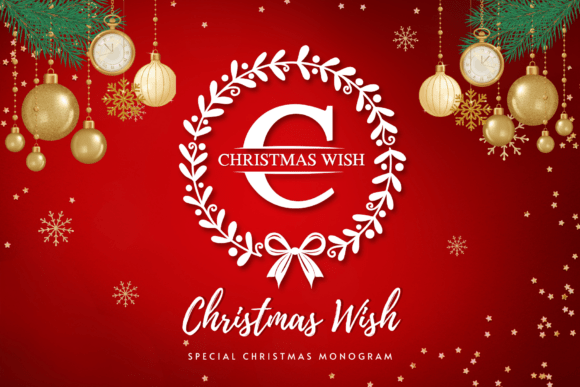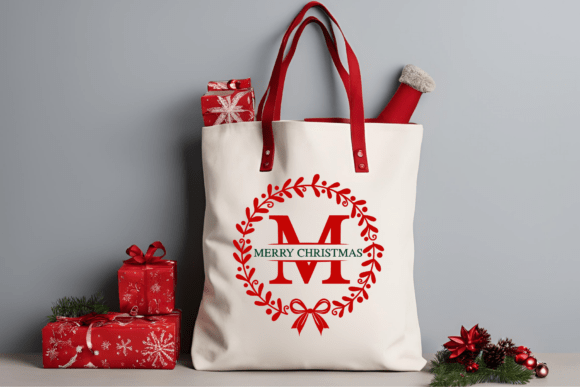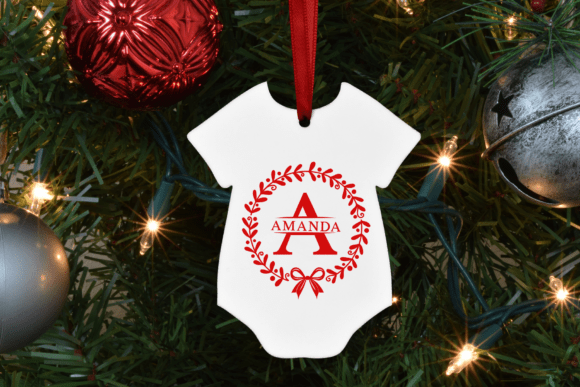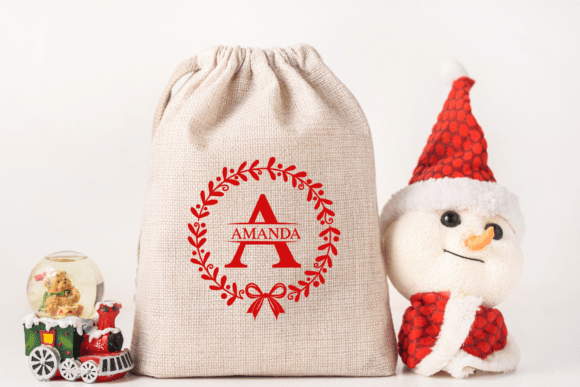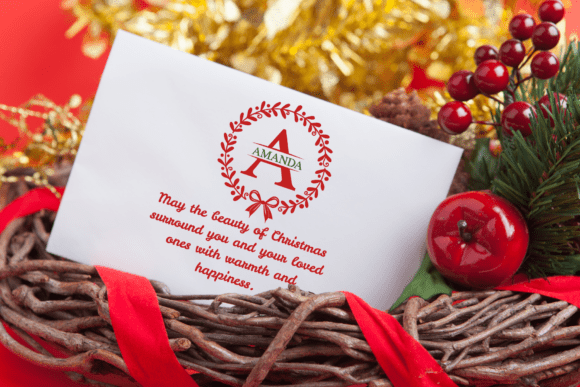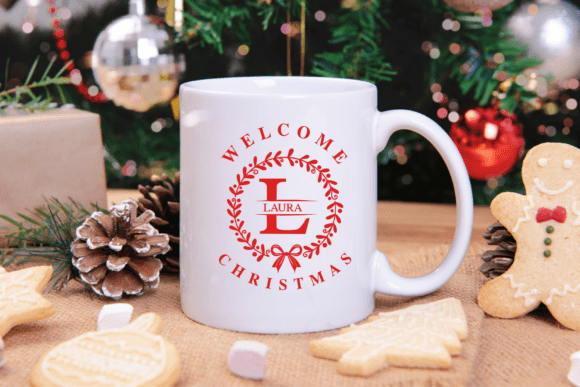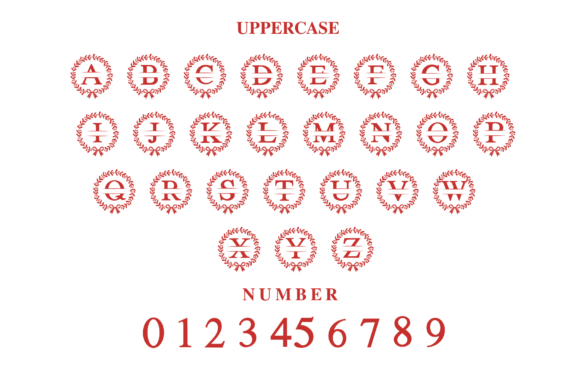
Deck the Halls with Holiday Cheer: Introducing Christmas Wish Monogram Font
As the snowflakes start to fall and the holiday lights begin to twinkle, many designers find themselves in the midst of a creative whirlwind. The festive season is a time for joy, giving, and making memories with loved ones. For those who love to create, there’s no better way to capture the essence of Christmas than with a beautiful and elegant monogram font.
Enter the Christmas Wish Monogram Font, a stunning typeface that adds a touch of holiday magic to any project. With its intricate details and festive flair, this font is perfect for crafting cards, invitations, and posters that exude the spirit of the season. Whether you’re a seasoned designer or a crafty enthusiast, this font is a valuable addition to your holiday arsenal, allowing you to create joyful and memorable projects that will be cherished for years to come.
Christmas Wish Monogram Font Key Features
- Font Style: A unique, hand-drawn monogram font with a festive and elegant design, perfect for Christmas and holiday-themed projects.
- Unique Characteristics: Features intricate details, ornaments, and flourishes that add a touch of sophistication and whimsy to designs.
- Font Weight: Available in Regular and Bold weights, allowing for flexibility in design applications.
Christmas Wish Monogram Font Review
I was excited to dive into the Christmas Wish Monogram Font, and here’s my honest take.
- Unique and festive design that captures the essence of Christmas
- Well-suited for holiday-themed projects, like greeting cards and gift tags
- Includes a range of ornaments, shapes, and monograms to create a cohesive look
- Limited character set, which may not be ideal for longer text
- Some of the ornaments and shapes may not be suitable for all designs or color schemes
- No bold or italic styles, which could be useful for emphasis
Overall, I think the Christmas Wish Monogram Font is a lovely addition to any designer’s holiday collection. While it has some limitations, its unique design and festive feel make it a great choice for specific projects. With a bit of creativity and planning, you can create stunning designs that capture the spirit of the season.
The Christmas Wish Monogram Font is perfect for:
- Christmas cards and invitations
- Custom Christmas logos and branding
- Festive presentations and documents
- Personalized gift tags and labels
What is the recommended font size for using the Christmas Wish Monogram Font?
The recommended font size for the Christmas Wish Monogram Font is between 12pt and 24pt. This size range provides optimal legibility and visual appeal for most design applications, including invitations, cards, and digital graphics.